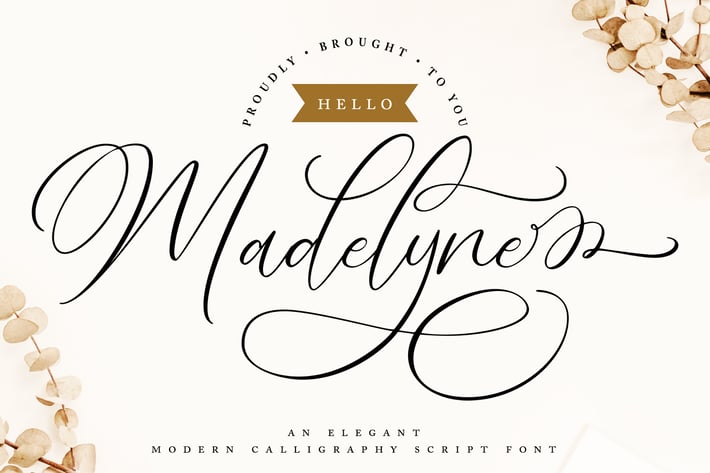
Hello Madelyne – Elegant Script Font
Hello Madelyne is a Modern Calligraphy Script typeface, perfectly suitable for creating quotes, Wedding Invitations, Beauty designs such as logos, quote, magazines, and more.
– Uppercase & Lowercase
– Numeral & Punctuation
– Alternates
– Swash Alternates
– Stylistic Sets
– Initial Alt & Final Alt
– Standard Ligature & Discretionary Ligature
– Custom & Extra